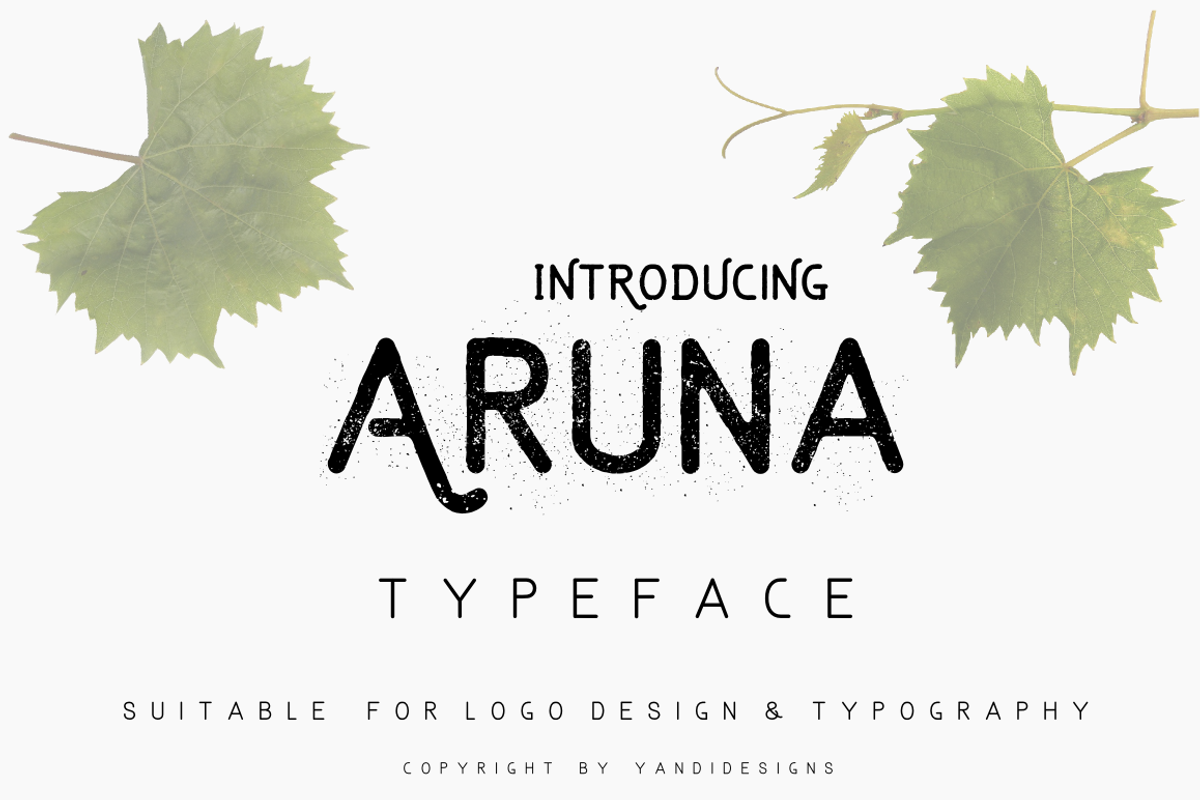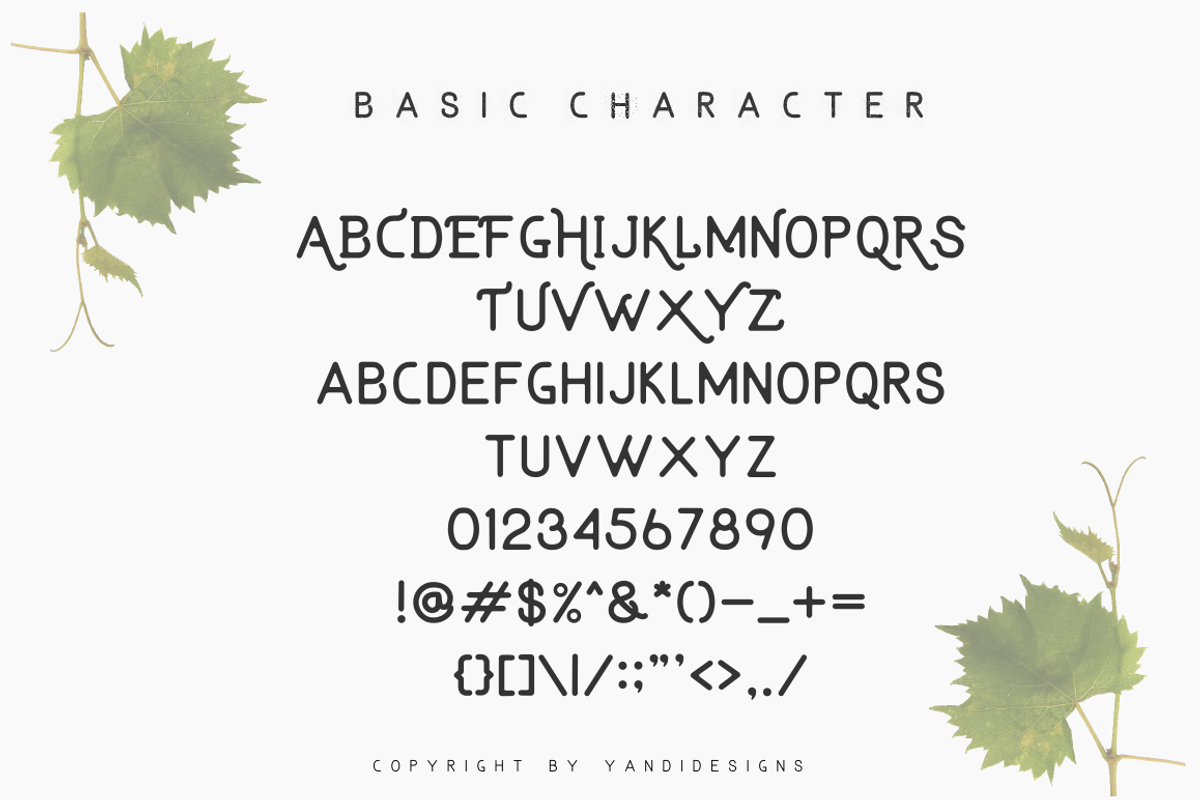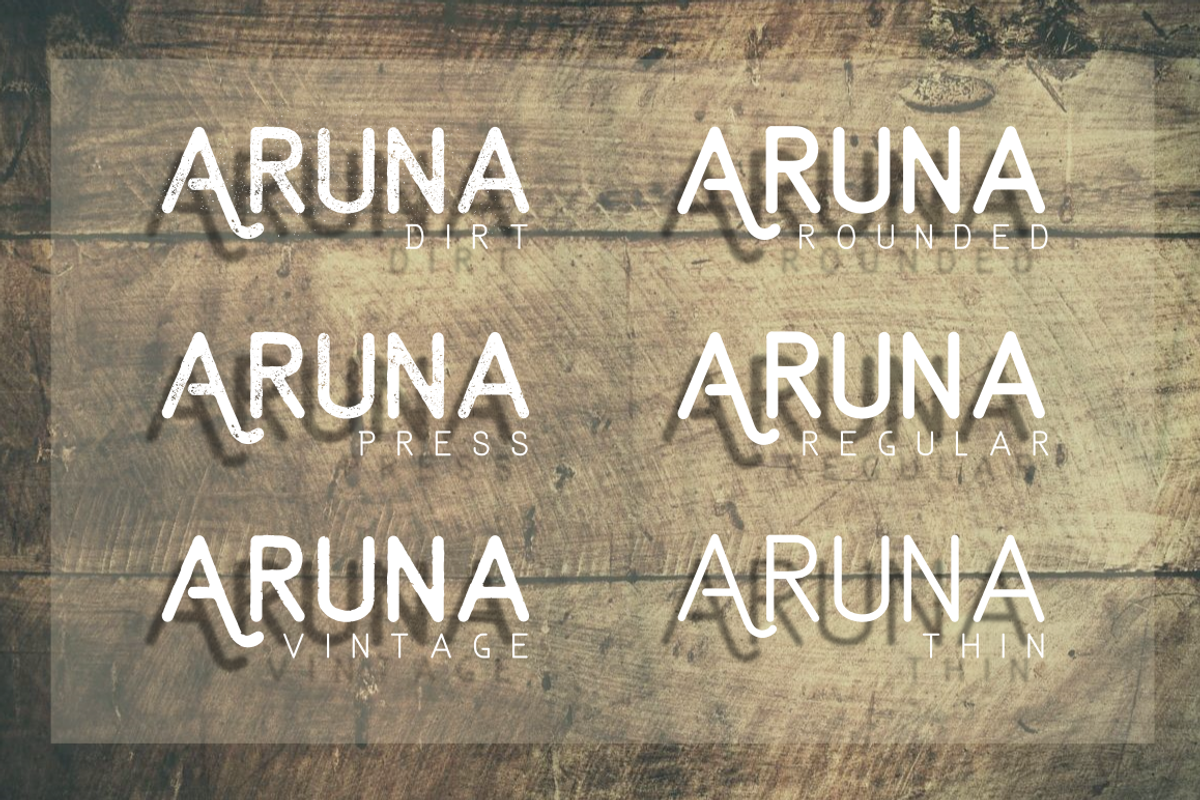
Aruna Typeface
Aruna Typeface by YandiDesigns is a font selected for branding, posters, packaging, typography.
Why Aruna Typeface is worth a look
Aruna Typeface by YandiDesigns fits naturally into Branding, posters, packaging, typography.